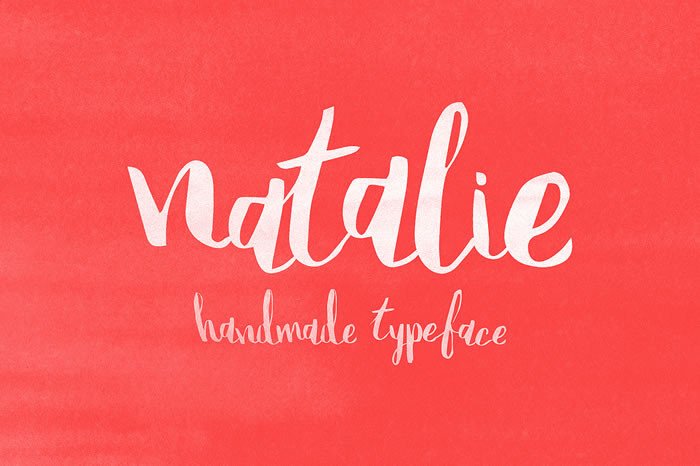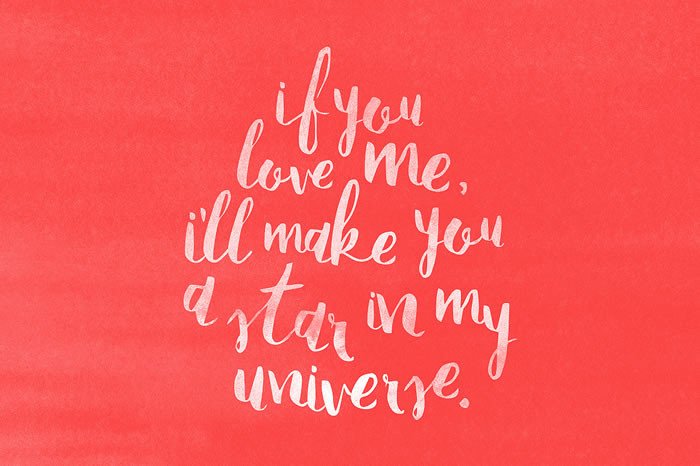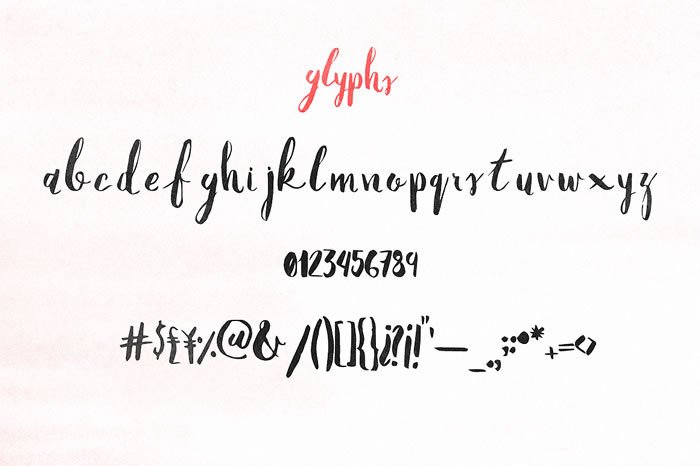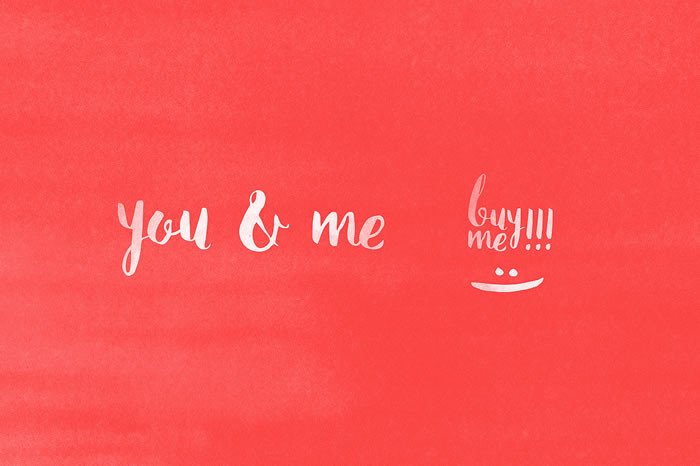
Natalie Font
About Natalie Font
Natalie is beautiful typeface which can be used perfectly for logo’s, invitations, posters, quotes, letterheads, birthdays and much more